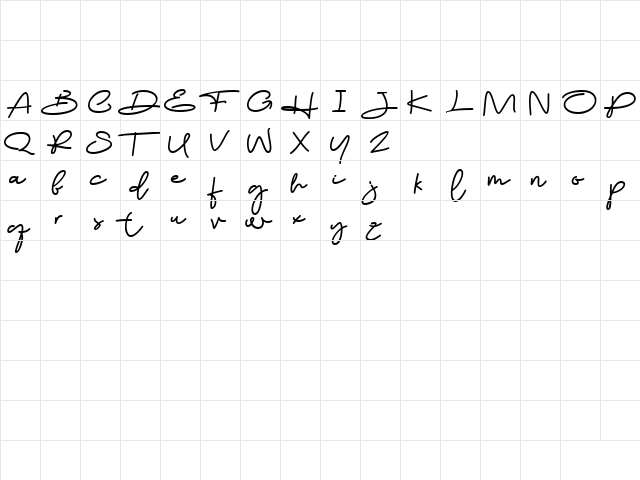
Beauty Boutique Regular
Design Context for Beauty Boutique Typeface
Beauty Boutique is a composed and adaptable typeface that performs quietly and consistently across a wide range of design contexts.